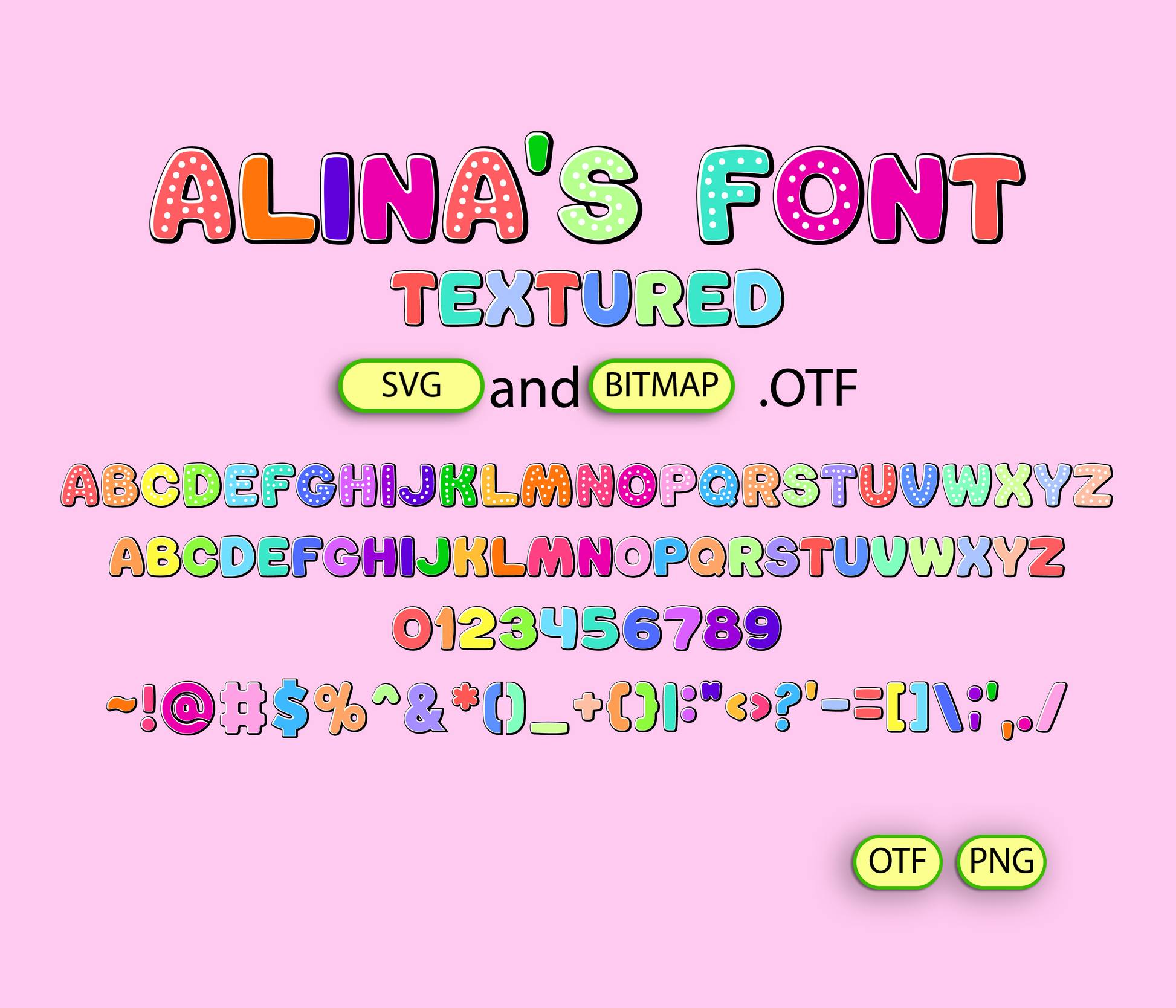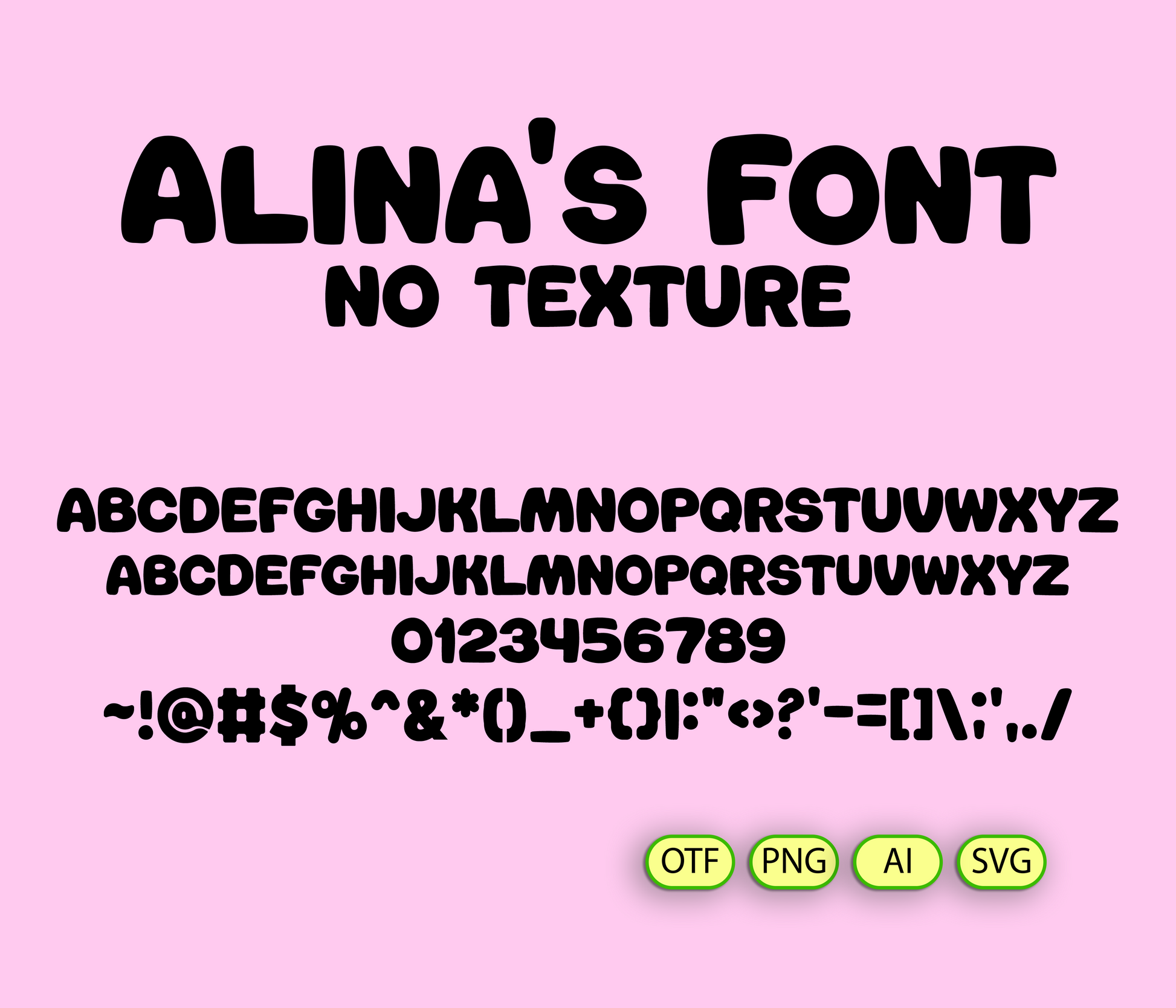
Vivid Prism Font Textured
Step into the dazzling realm of color splendor with our Vivid Prism font, capturing the essence of kaleidoscopic brilliance and cheerful expression. Perfect for festivity coordinators, celebration designers, youth entertainment creators, and imaginative professionals, this font brings the dynamic, spirited essence of multi-hued radiance to your projects. Create striking invitations, jubilant merchandise, or digital content with the luminous, uplifting energy of a complete chromatic array.
Our Vivid Prism font features luminous, striking characters and hue-saturated letterforms reflecting the complete gradient of chromatic tones in harmonious brilliance. Ideal for:
- Jubilation Materials: Create eye-catching invites, posters, and banners for milestone celebrations, diversity events, and multi-colored themed gatherings
- Youth-Oriented Design: Perfect for learning materials, picture books, and playful accessories that ignite young imaginations
- Digital Presence: Enhance websites, blogs, and social media with brilliant headers and graphics that express creativity and elation
- Celebration Content: Add authentic character to occasion materials, signage, and promotional materials for color celebrations and artistic festivals
- Personal Projects: Bring chromatic enchantment to scrapbooking, DIY crafts, and home decor inspired by the full spectrum of brilliant hues
Our font pays tribute to the joyful expression of color in all its splendor, empowering your designs with its brilliant and lively spirit. Whether crafting celebration materials, designing chromatic merchandise, or adding a cheerful touch to personal projects, this font communicates the full spectrum of creative expression. Ready to inject prismatic brilliance into your creations? This font is your key to vividly impactful design.